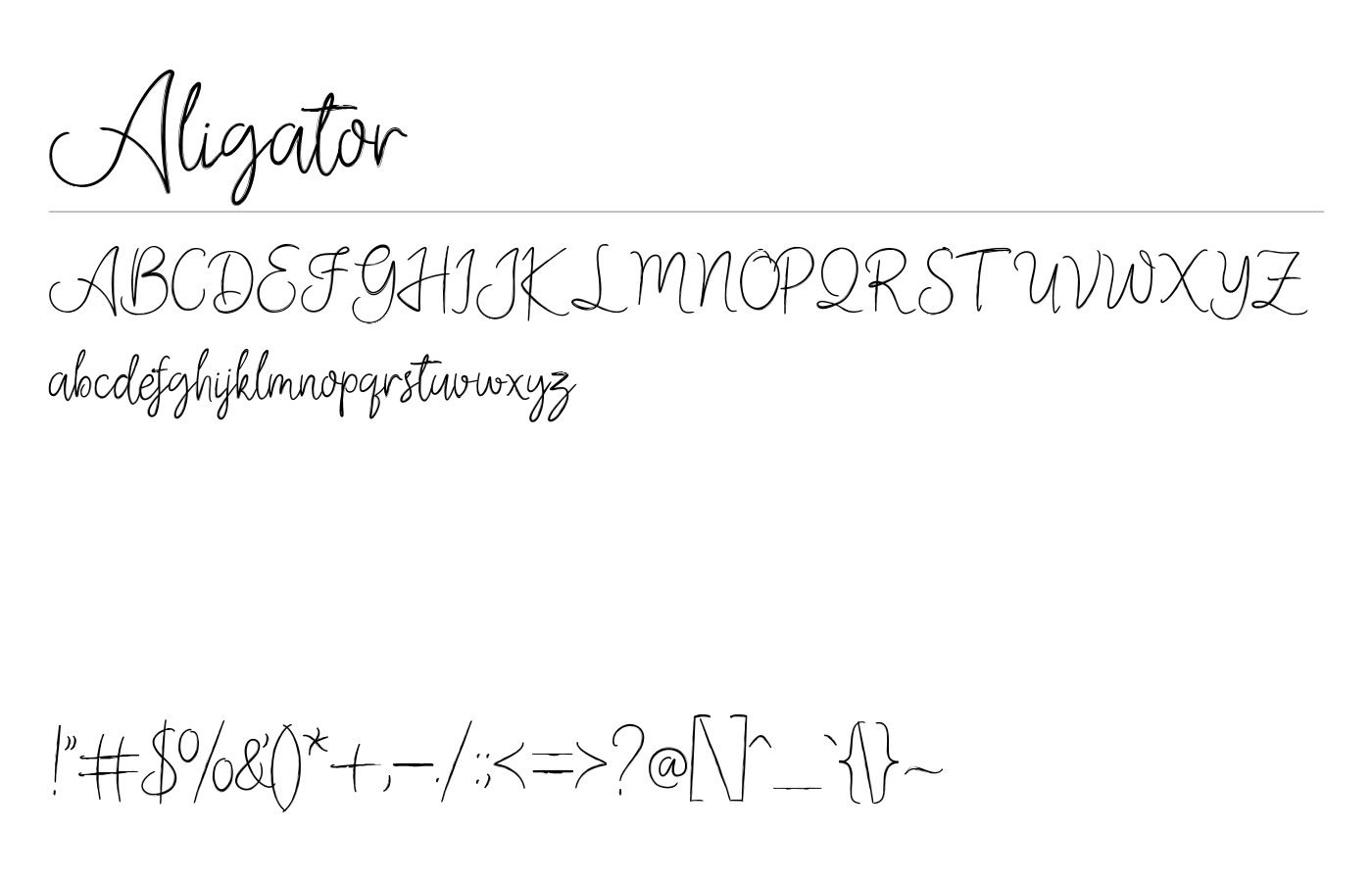
Aligator is a delicate, handwritten script font with elegant, flowing lines that convey a personal and artistic touch. Its slender, airy letterforms with subtle flourishes make it ideal for creative projects, invitations, and branding that seeks a charming and sophisticated feel. This font works particularly well in designs where a graceful, informal style is desired, adding a sense of warmth and uniqueness.
Aligator Font
About Aligator Font
| Font family | Aligator Font |
| Designer | Vilogsign 2018 |